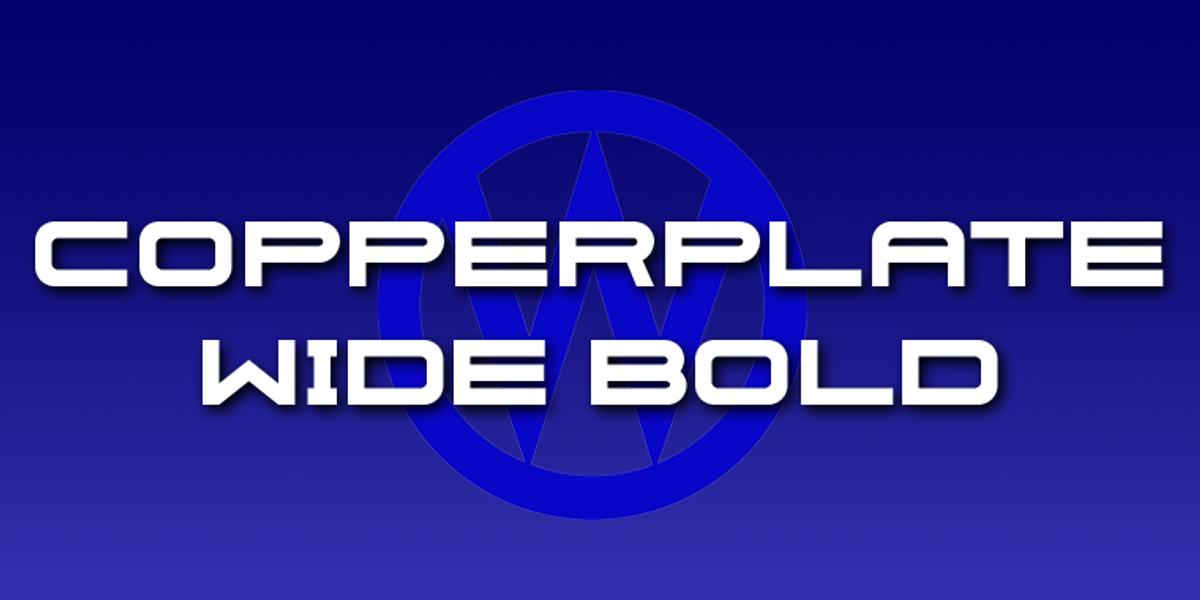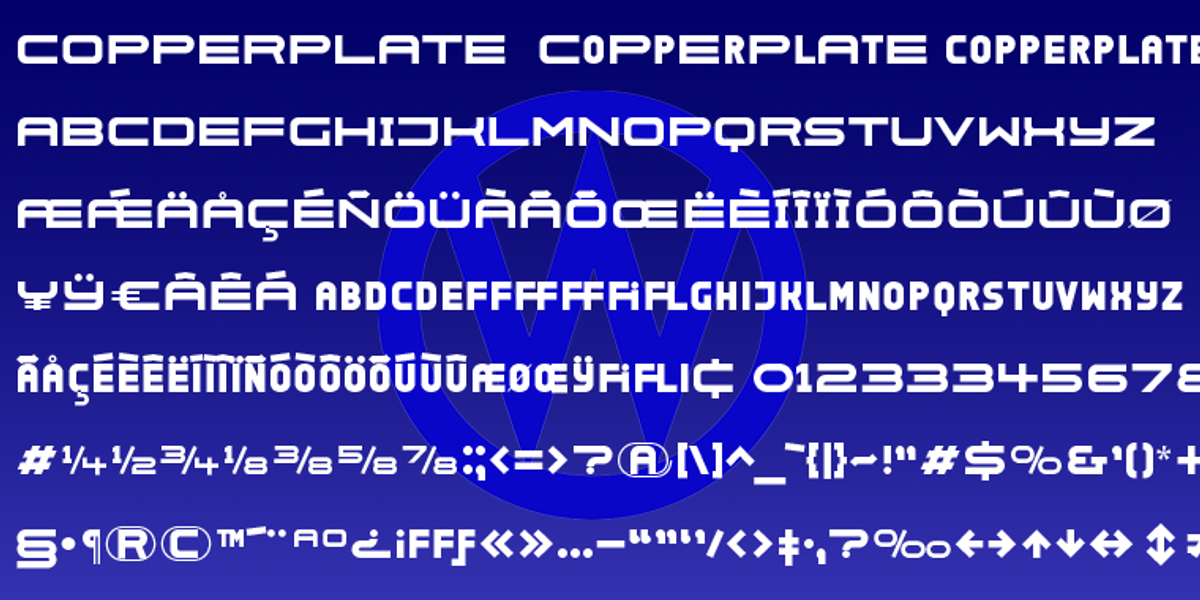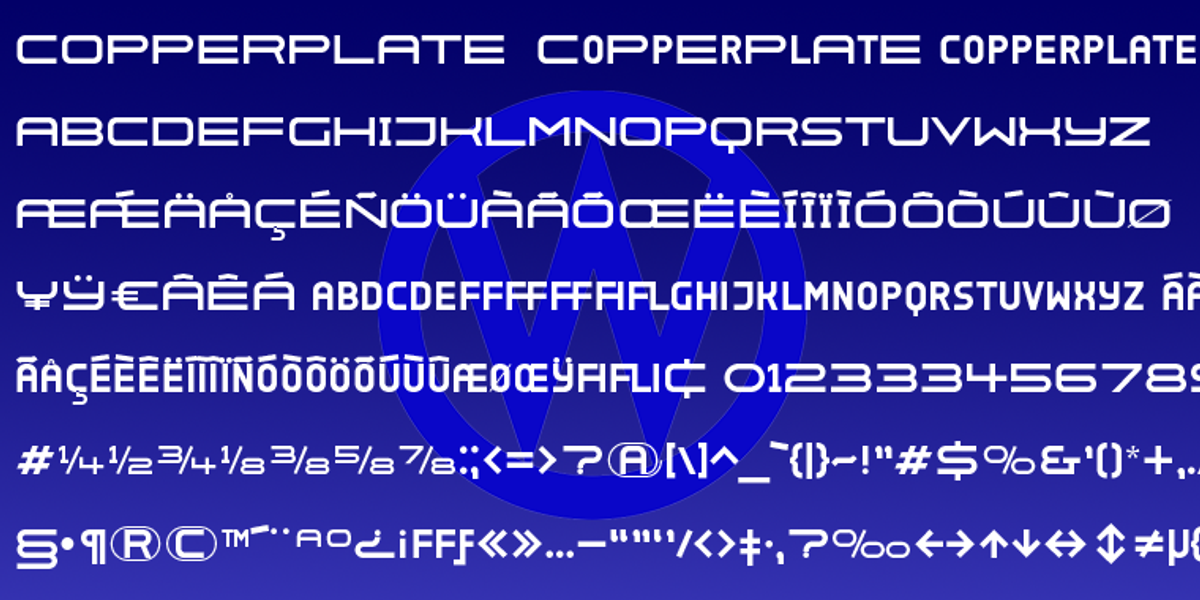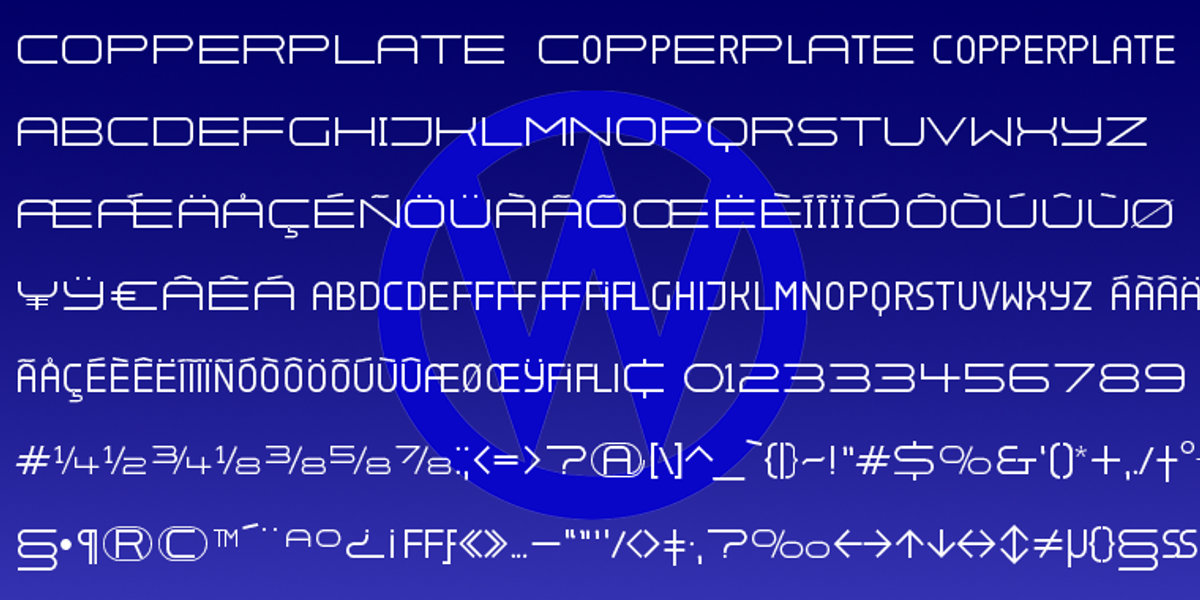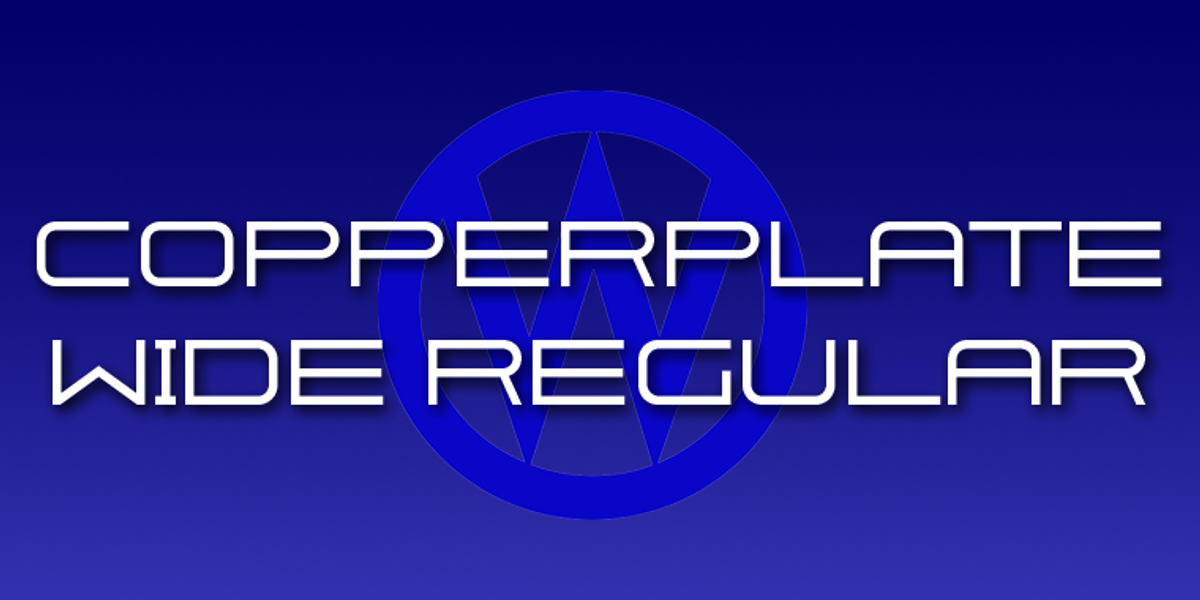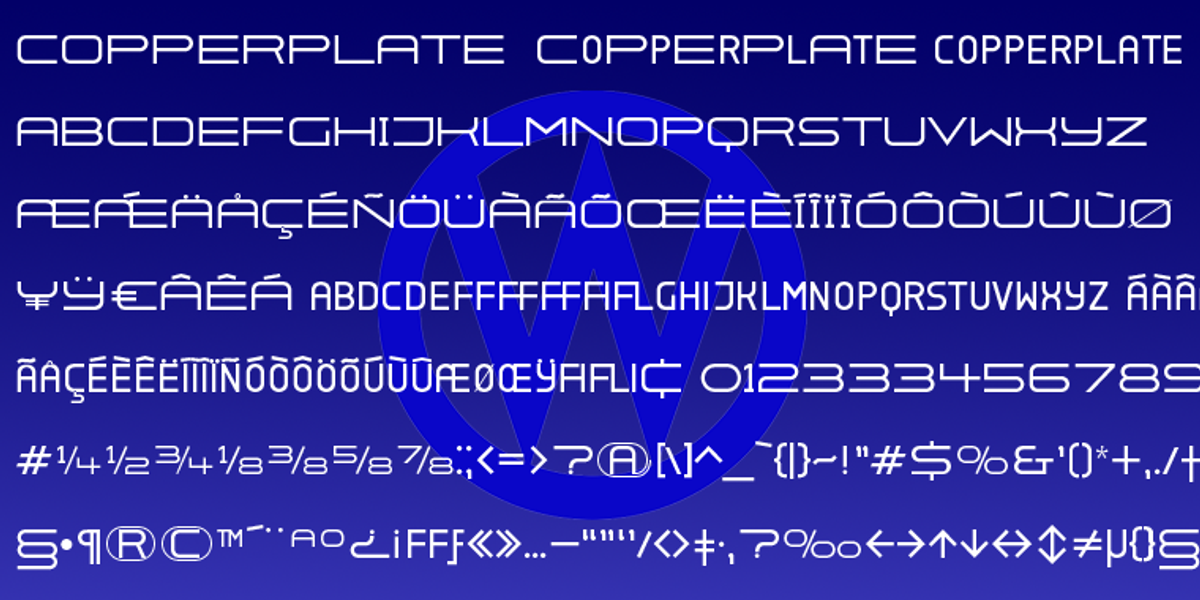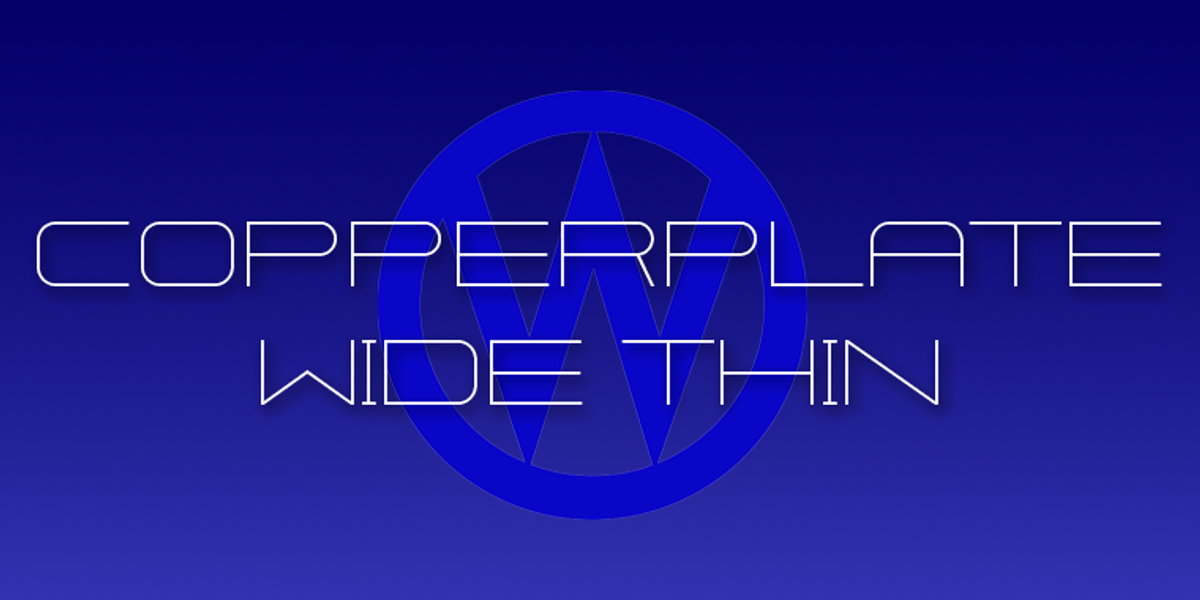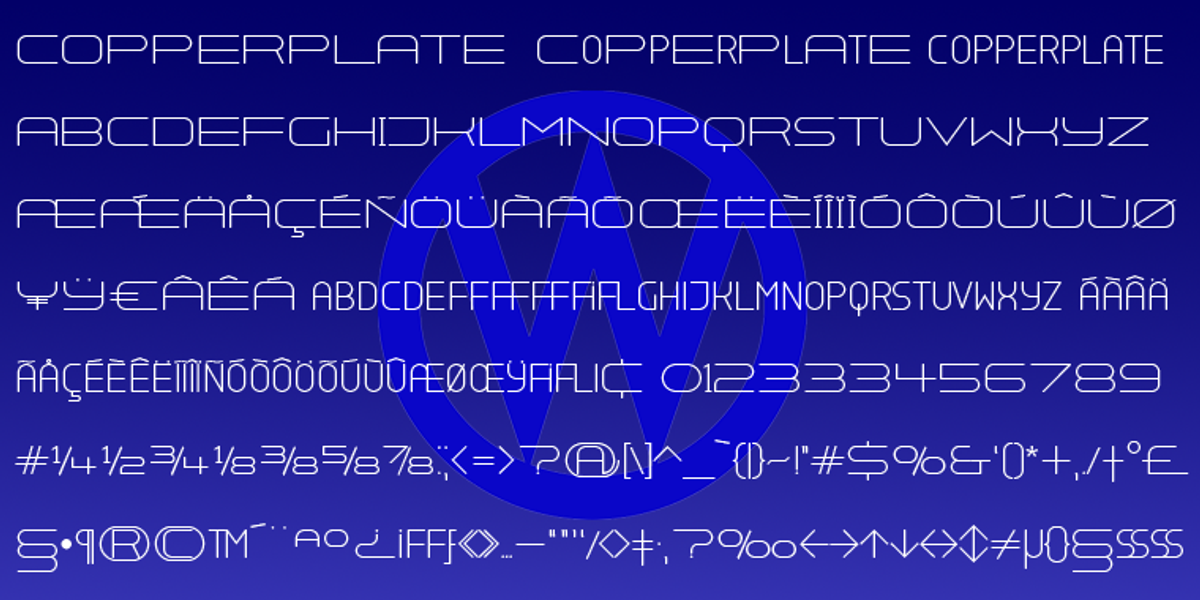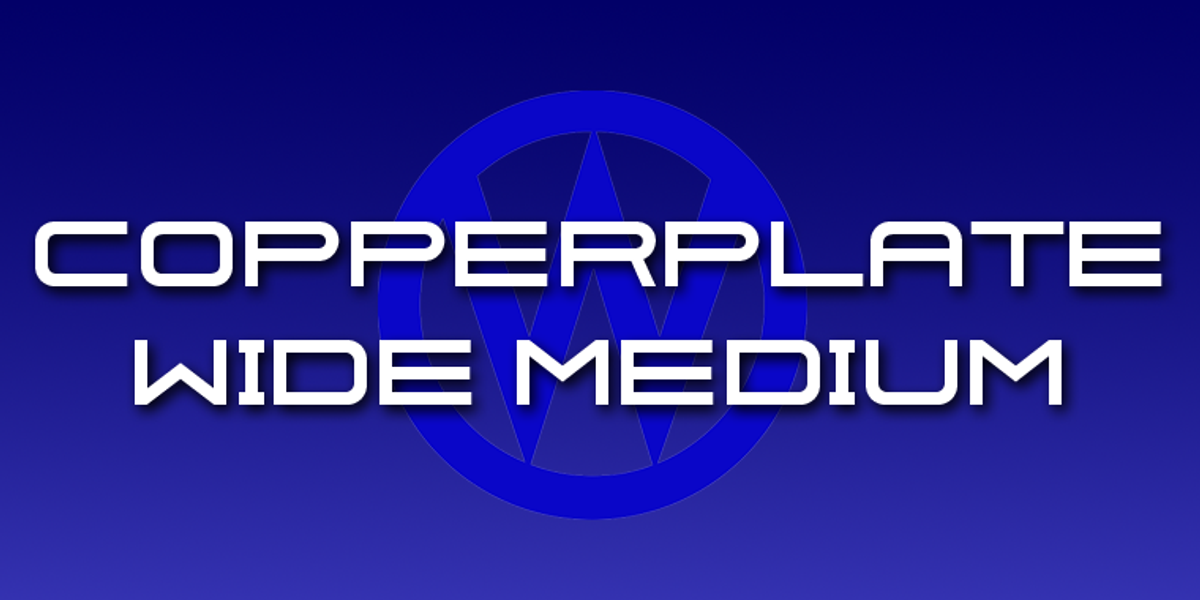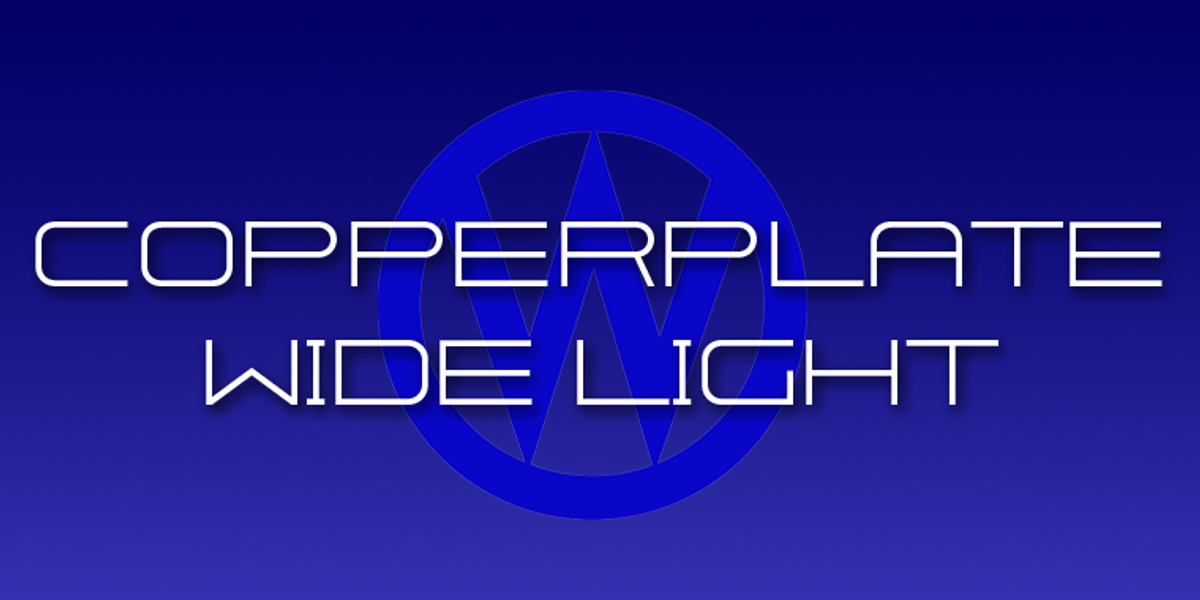
Copperplate Wide
Copperplate Wide is a distinctive display sans serif font inspired by the traditional Copperplate typeface. The designer, Gert Wiescher, has reimagined Copperplate in a much wider format, removing the serifs and introducing a slim version for lowercase letters. This dual letter style allows for creative flexibility, enabling users to mix wide and narrow letters for unique typographic effects.